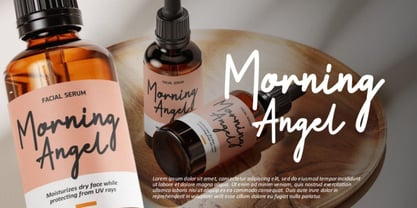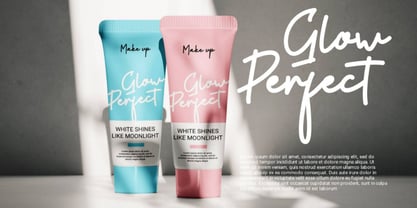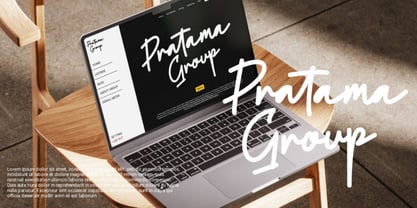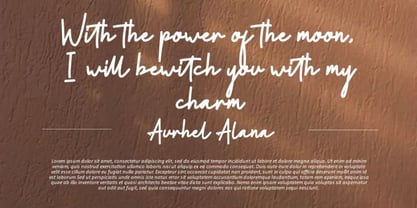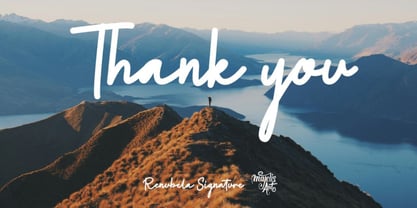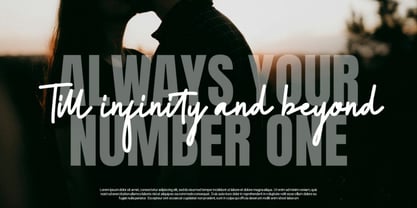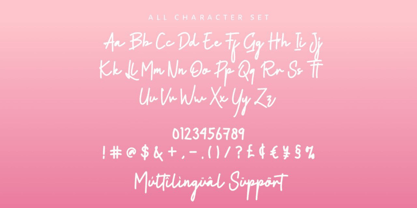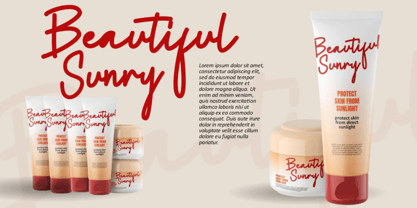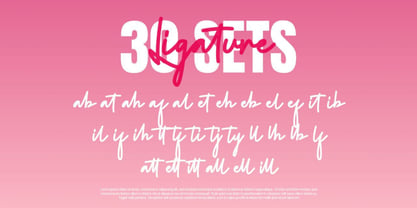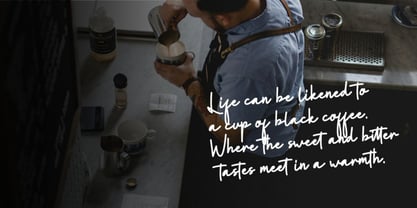
Renubela Signature
by Majelis Art
The Renubela Signature Font Family was designed by Fikhry Mus Pratama and published by Majelis Art. Renubela Signature contains 1 styles. More about this family
Renubela means happy even though they are far apart they still keep in touch with each other.
Renubela is a font created using a bold marker with bold curves. And given a little hand carving that resembles human writing, a signature version.
This font is perfect for use on cosmetic brands, web titles, food products, commercial posters, shopfront carvings, book covers, movie titles, and more...
- Uppercase and lowercase
- Numeral and Punctuation
- Multilingual support
- Ligature